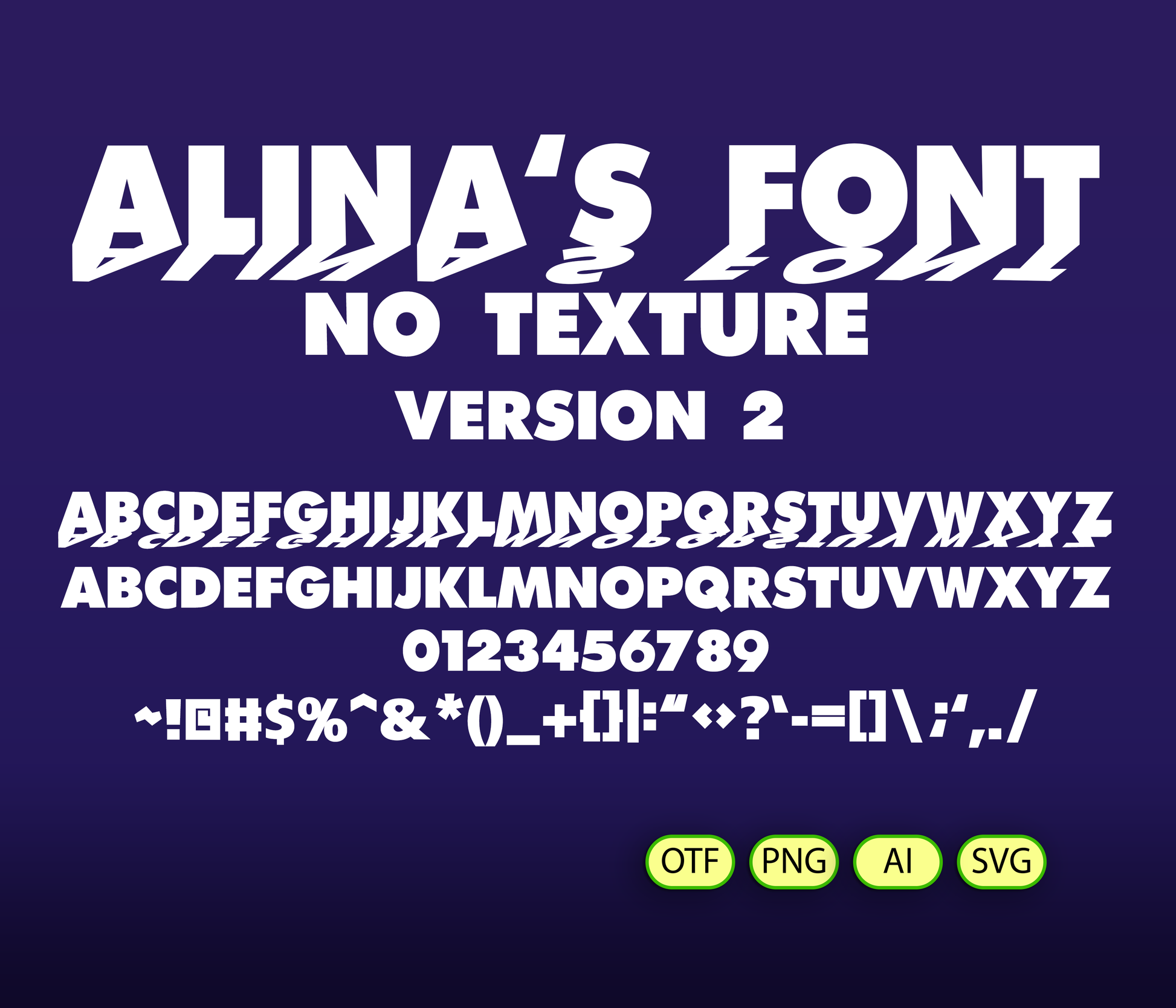
Whimsical Invisible Companions Font
Step into the magical realm of childhood imagination with our Whimsical Invisible Companions font! This enchanting typeface captures the essence of those special, unseen friends that bring joy, comfort, and endless adventures to young minds. Each character in this font radiates the creativity, wonder, and boundless possibilities that these fanciful buddies inspire.
What is the Whimsical Invisible Companions font?
Envision a typeface that embodies the playful spirit and fantastical nature of make-believe friends. Our font features lively, slightly quirky letterforms with a touch of whimsy, reminiscent of children's vibrant imaginations brought to life. It includes a full set of alphabets, numbers, and special characters, perfect for a wide array of imaginative and heartwarming design projects.
• Comprehensive Character Set: Offers a wide range of characters for complete design flexibility.